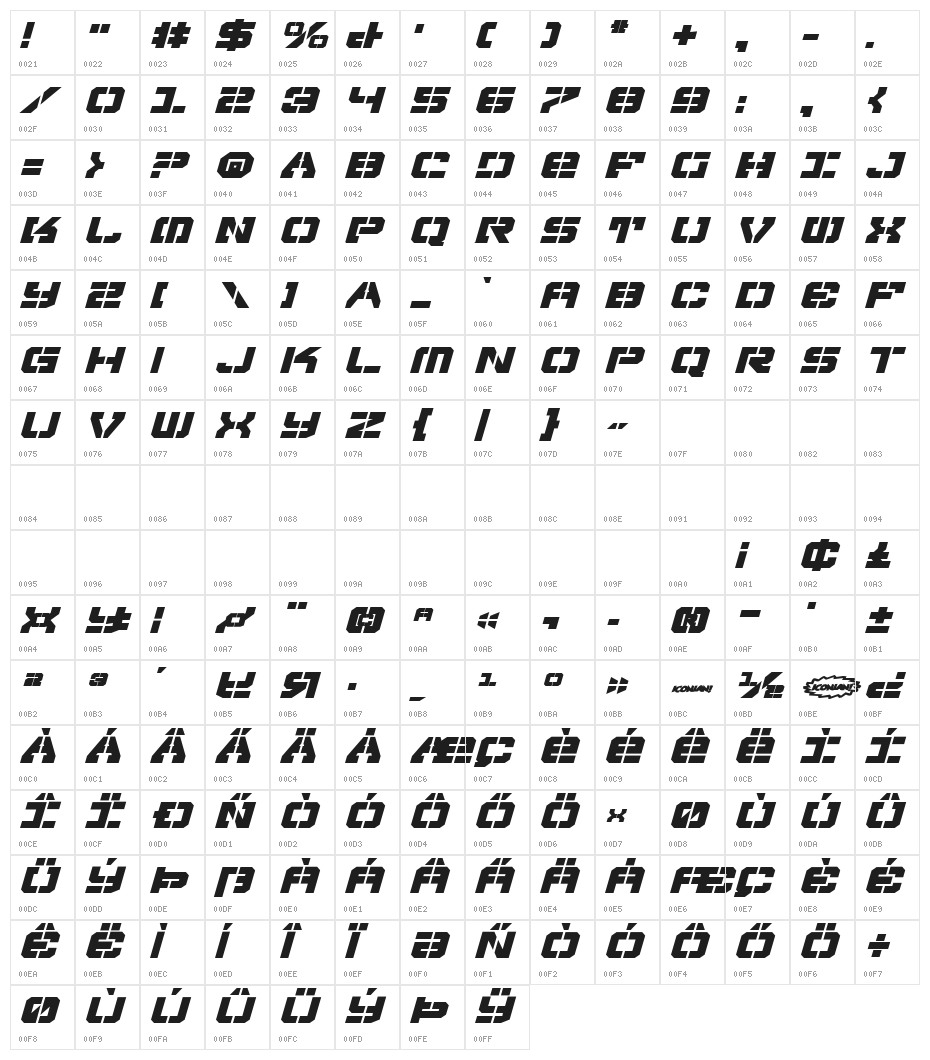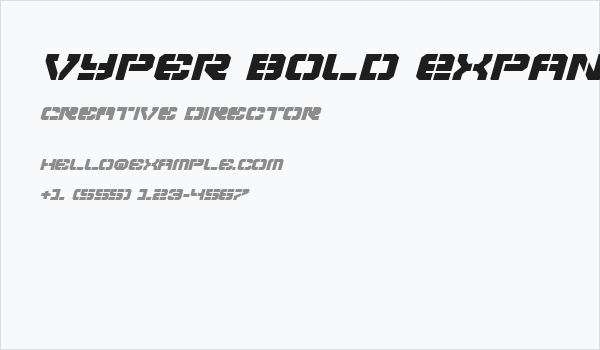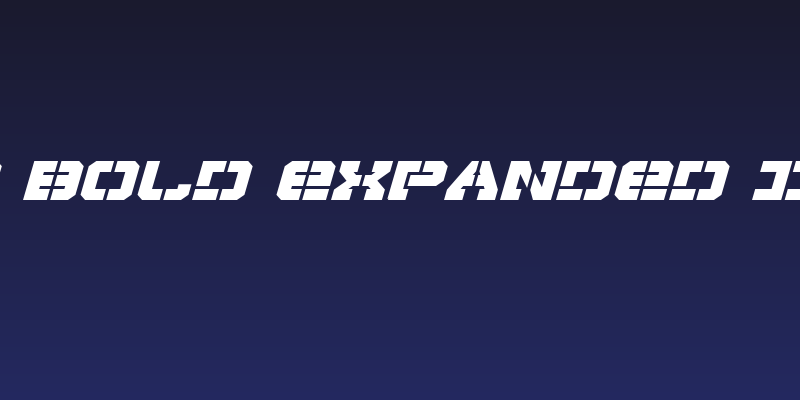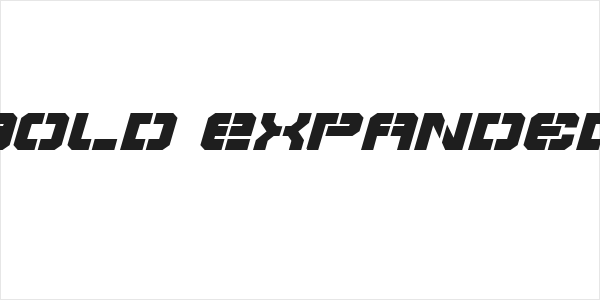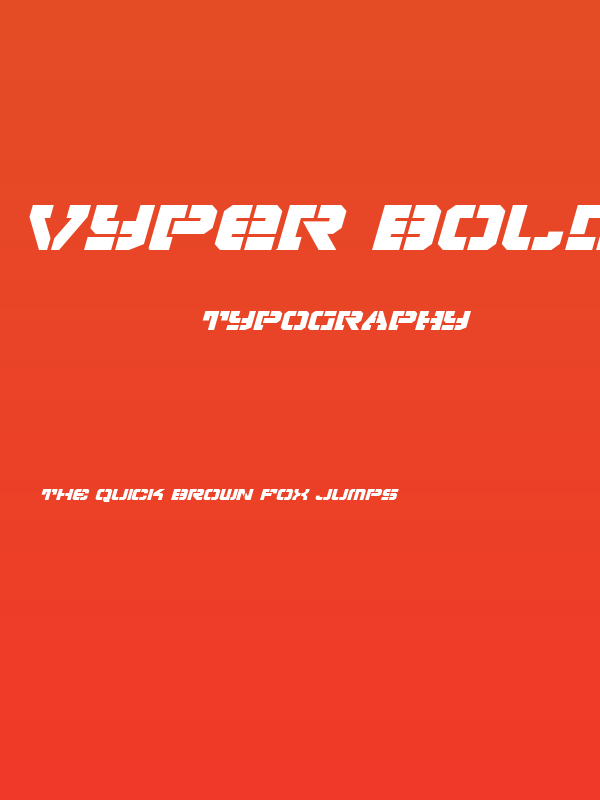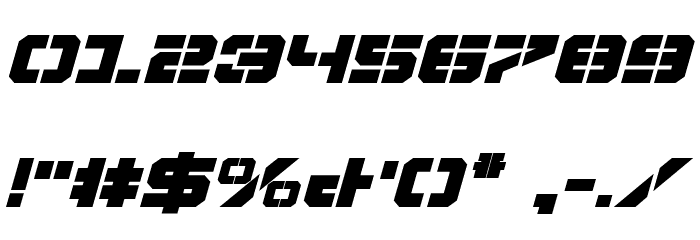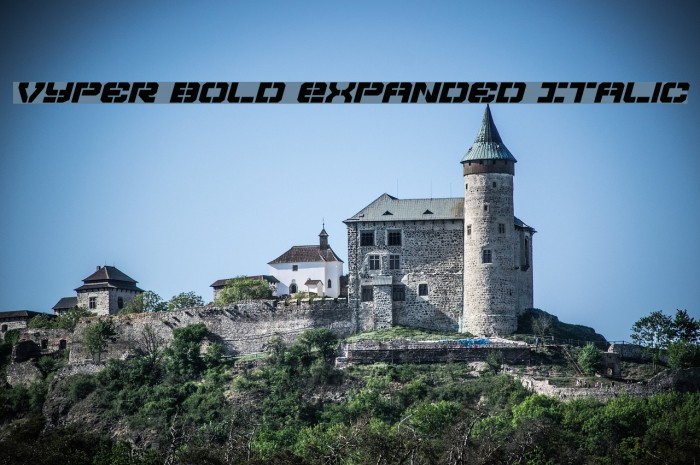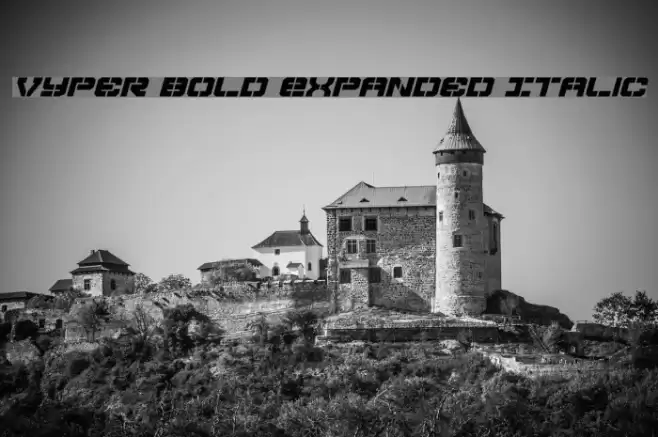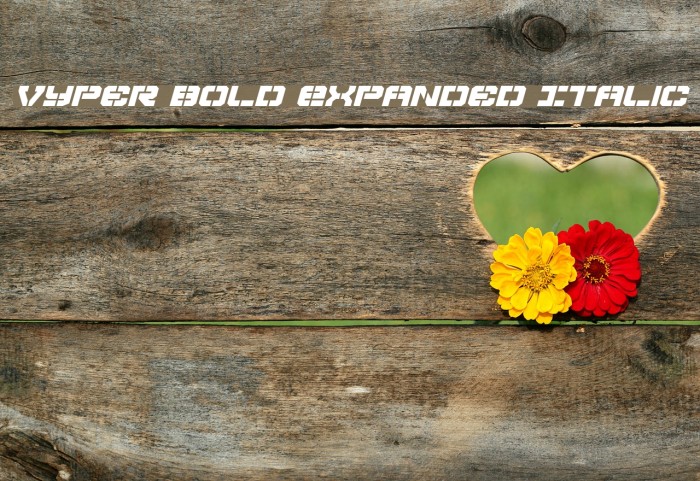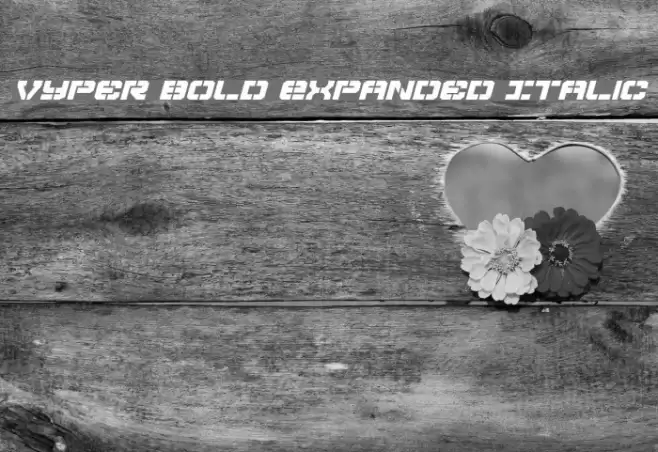
Vyper Bold Expanded Italic Font
Vyper Bold Expanded Italic Description
This font features a bold and expanded style with a distinct italic slant, giving it a dynamic and futuristic appearance. The characters are constructed with sharp, angular edges and a geometric design, creating a sense of movement and speed. The uppercase and lowercase letters maintain a consistent style, while the numerals and special characters complement the overall aesthetic. The expanded width of the characters enhances readability, making it suitable for impactful headlines and attention-grabbing designs.
| Overall Style | Futuristic |
| Proposed Projects | Ideal for projects that require a modern and dynamic look, such as technology branding, sports team logos, video game titles, and sci-fi themed posters. |